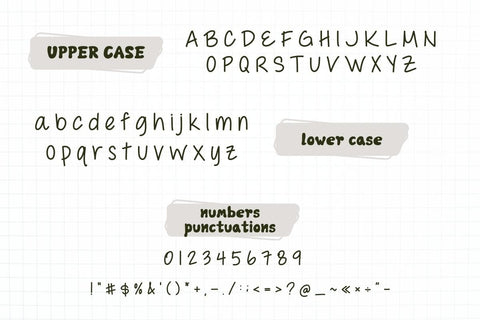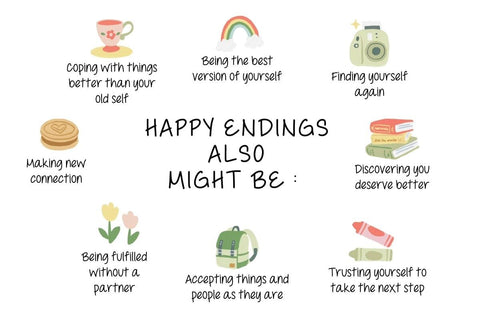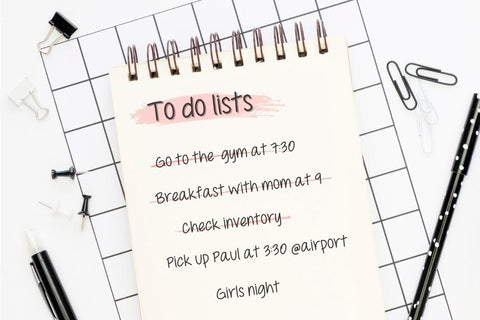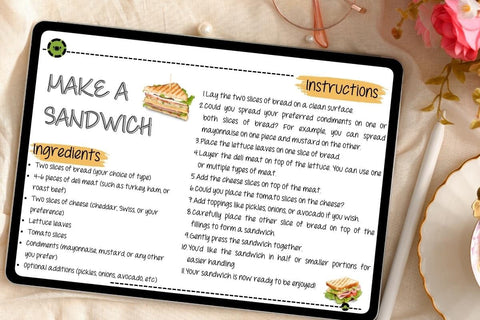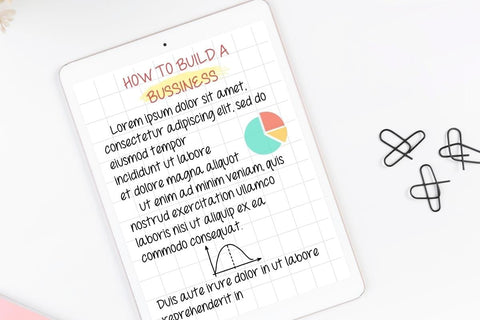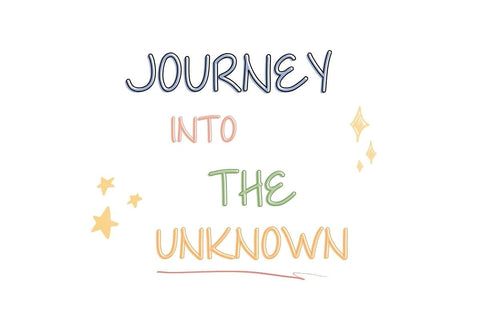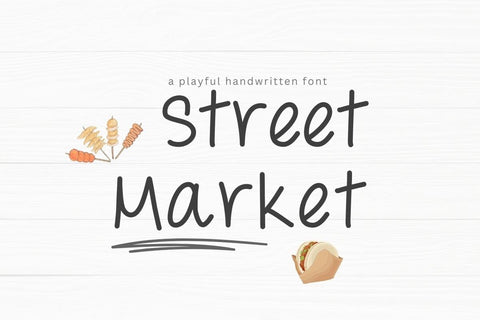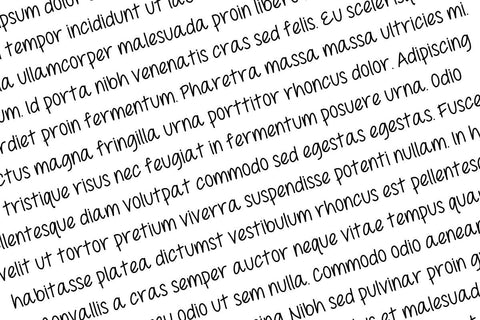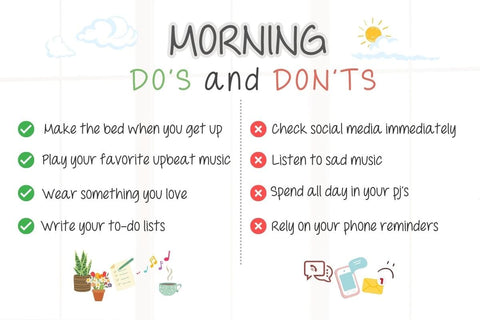
Street Market - Playful Handwriting Font
Street Market Font is a simple, neat handwritten font, perfect for digital note-taking. You can use this font in various projects – blog posts, logos, branding, digital planners, invitations, greeting cards, planners, photo albums, decorations, and much more.